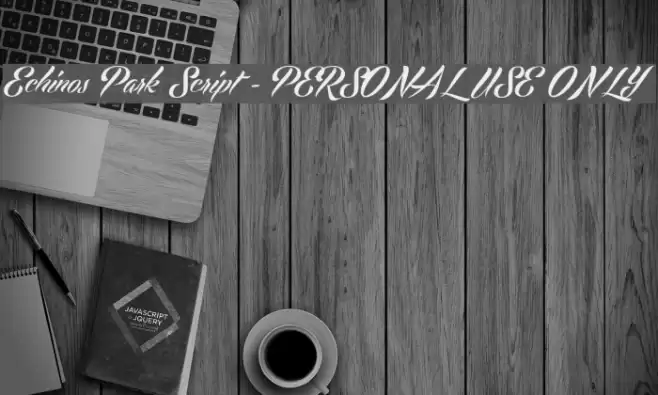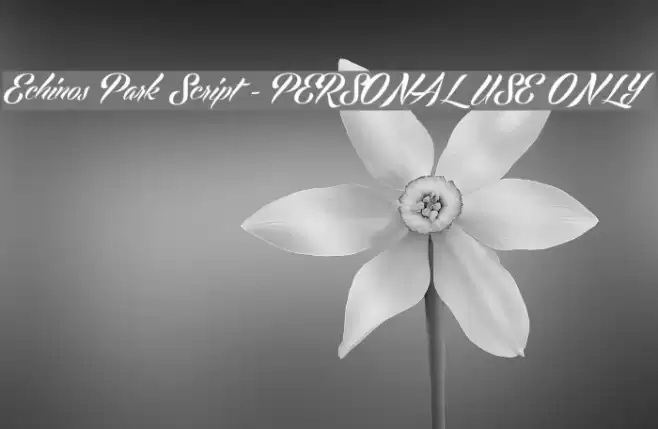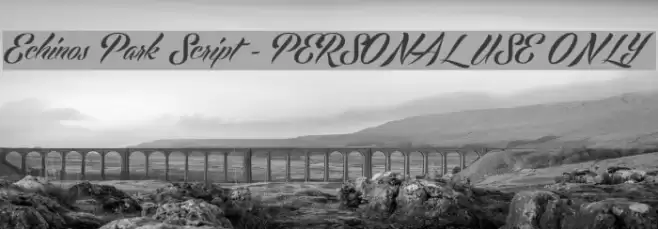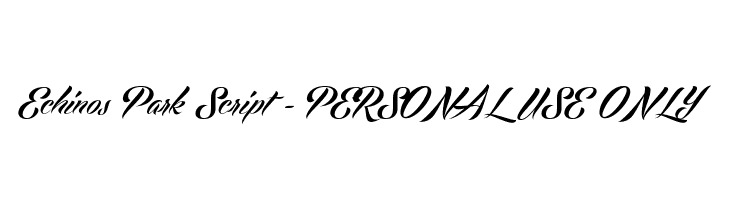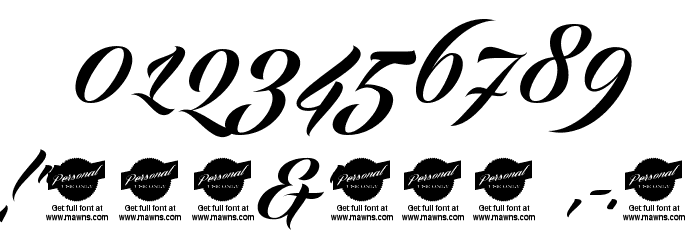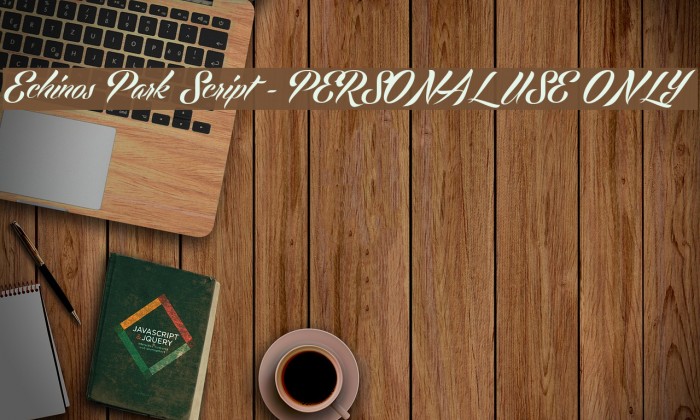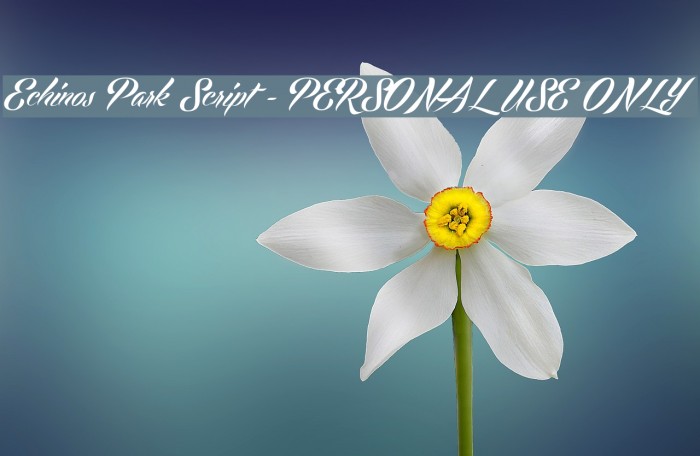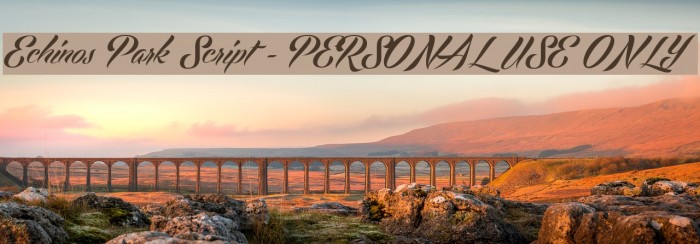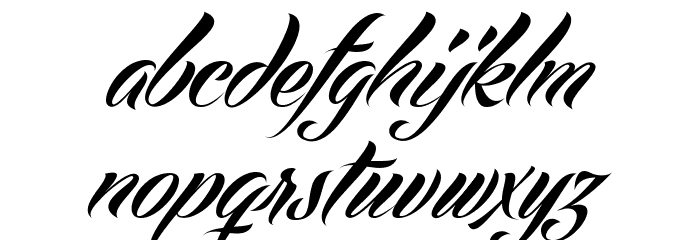
Echinos Park Script - PERSONAL USE ONLY Font
Echinos Park Script - PERSONAL USE ONLY Description
This font features an elegant and flowing script style, characterized by its smooth, cursive letterforms that convey a sense of sophistication and grace. The uppercase letters are bold and sweeping, with dramatic flourishes that add a touch of flair. The lowercase letters maintain a consistent flow, enhancing readability while retaining the decorative essence. Numbers and special characters are designed with the same attention to detail, ensuring a cohesive look across all text elements. This font is ideal for projects that require a personal and artistic touch, such as invitations, greeting cards, and branding materials.
An elegant and flowing script font with sophisticated cursive letterforms from Uncategorized fonts.